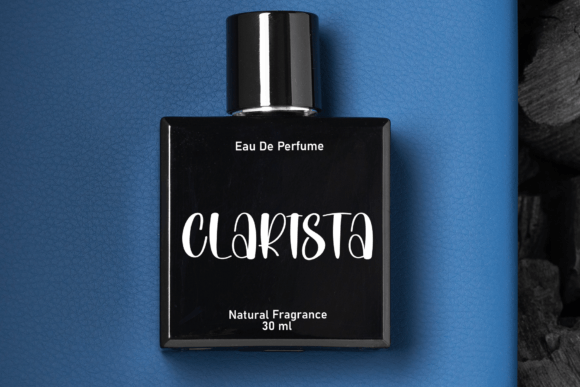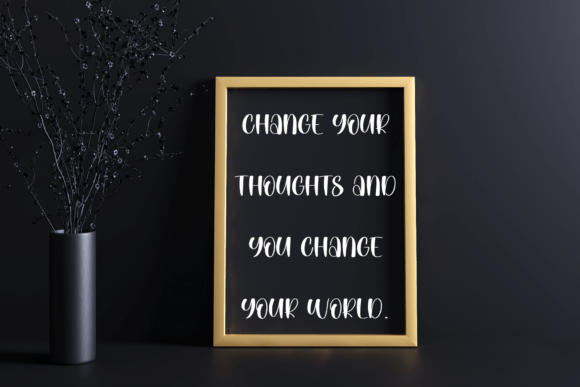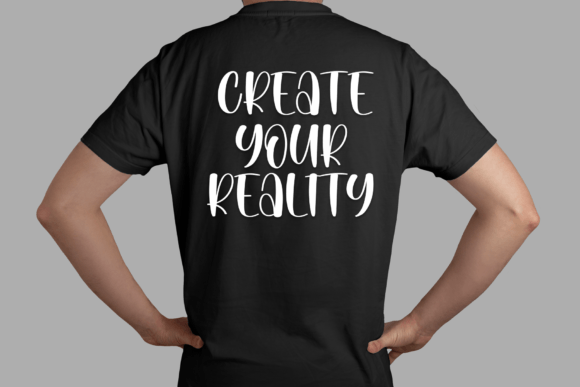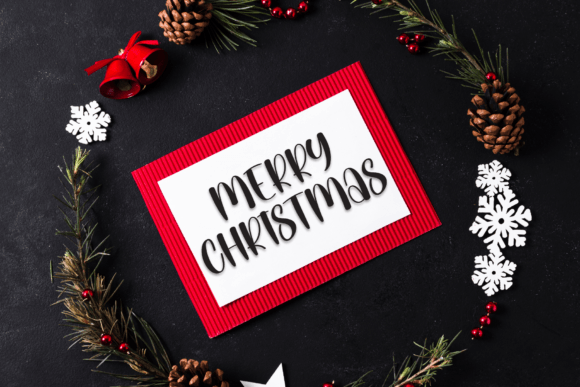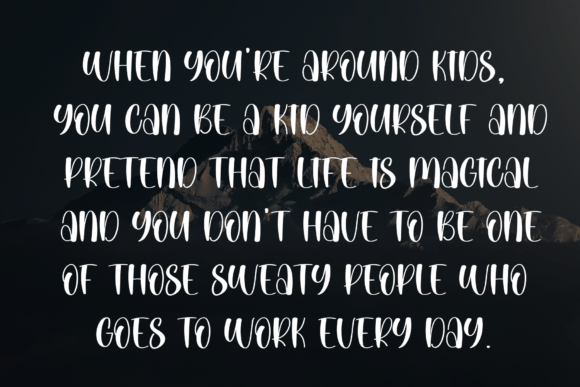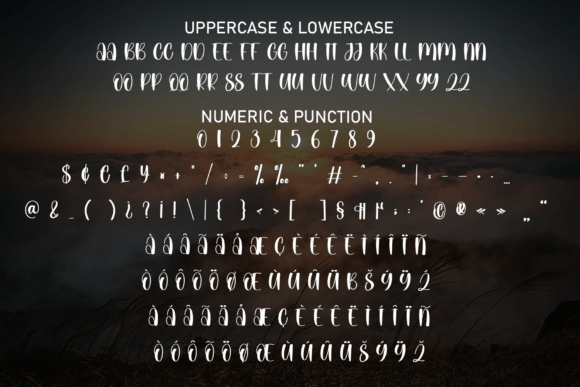
Introduction to Morning Wonderful Font
Morning Wonderful is a playful, handwritten font that looks like it’s written with joy.
Its fun, friendly style adds a cheerful touch to any project, making it perfect for invitations, cards, and more .
Key Features of Morning Wonderful Font